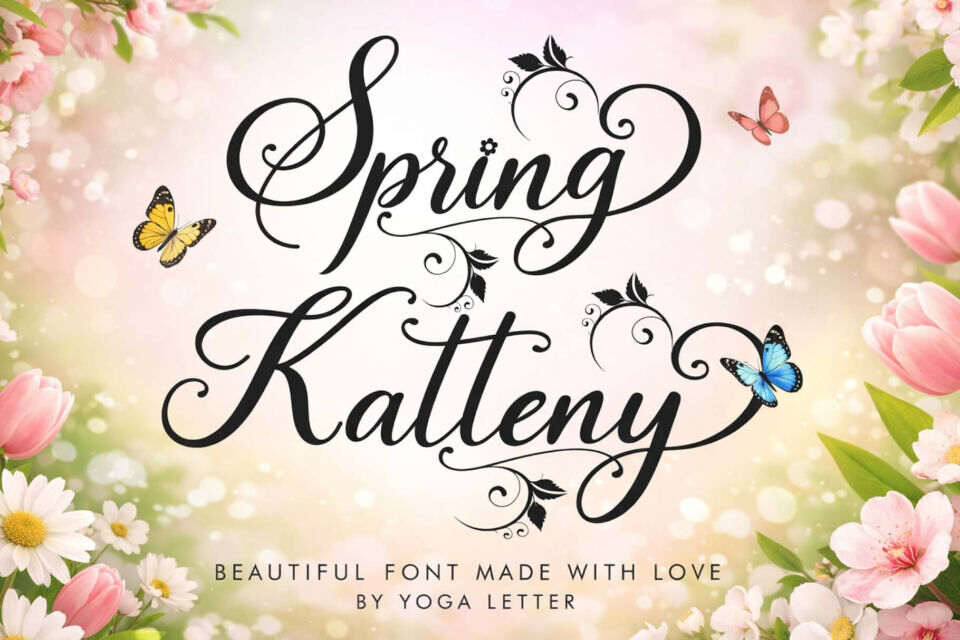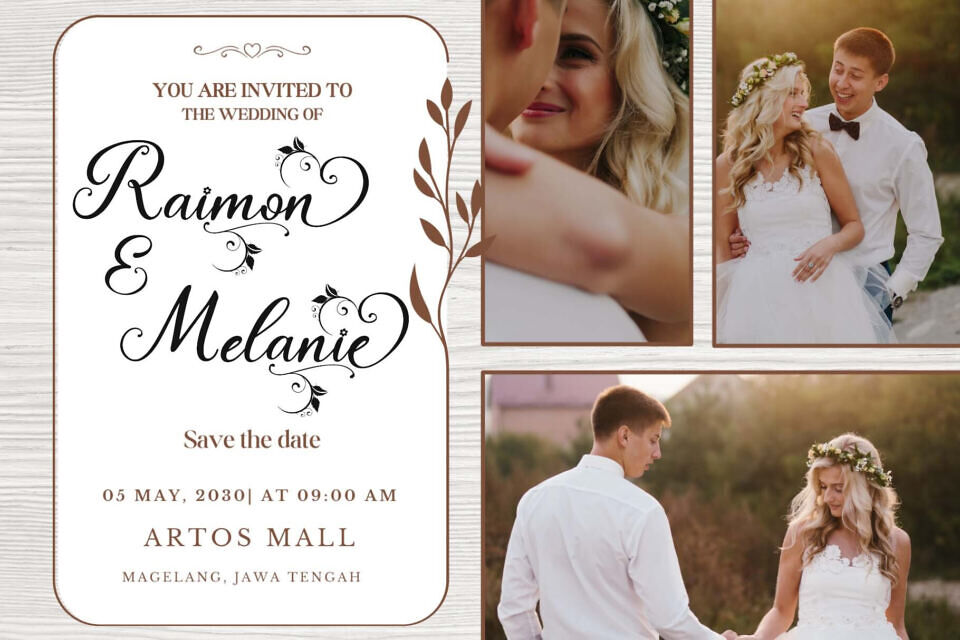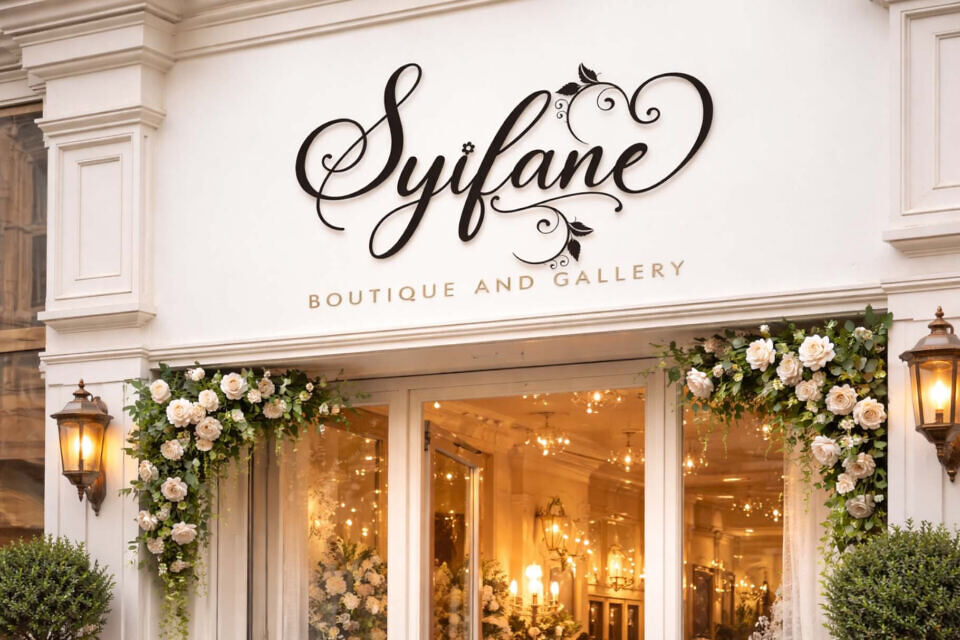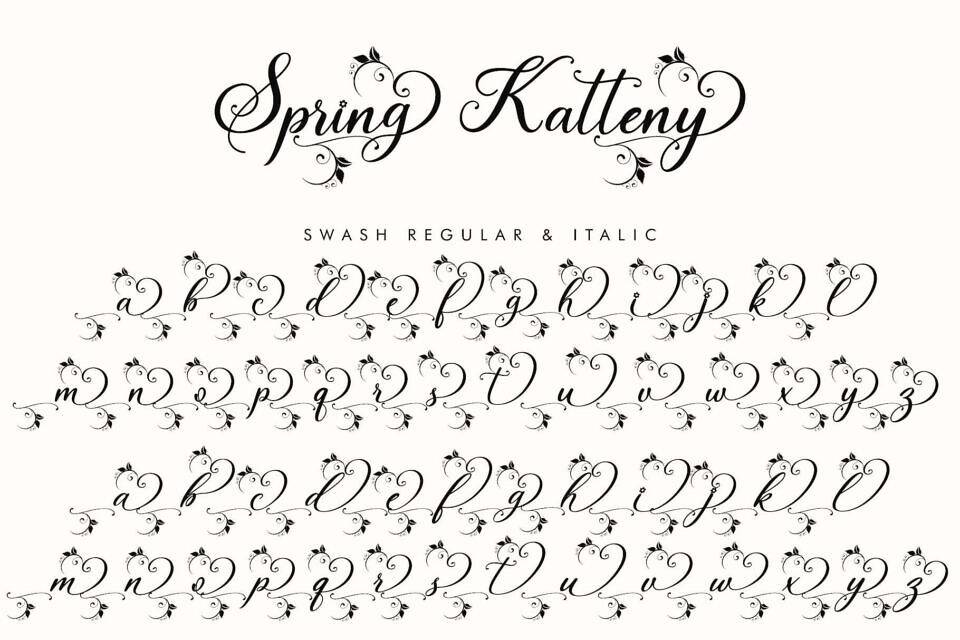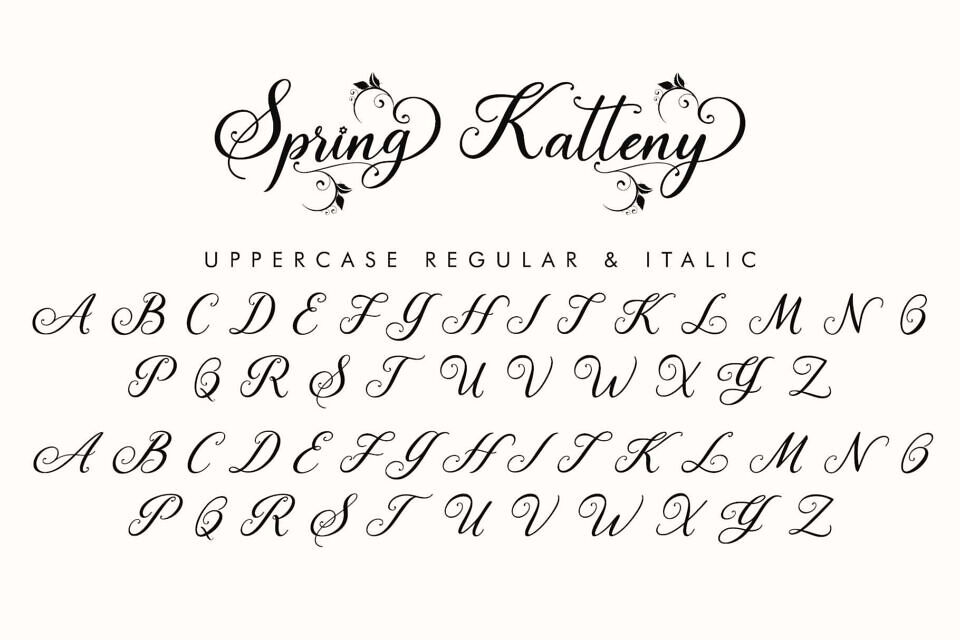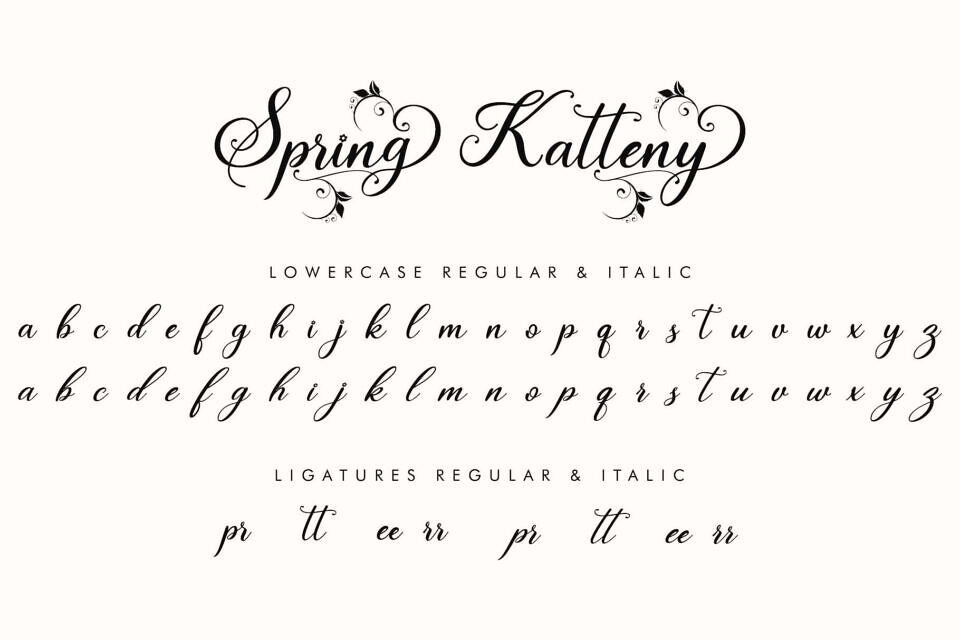
Spring Katteny Font
Spring Katteny is a beautiful and pretty handwritten font. This font comes in regular and italic types. It comes with uppercase and lowercase letters, ligatures, swashes, numerals, punctuations, and multilingual support.
It’s perfect for spring, summer, holidays, St. Patrick’s Day, Mother’s Day, Father’s Day, Women’s Day, weddings, photography, print, banners, branding, logos, stickers, and more.